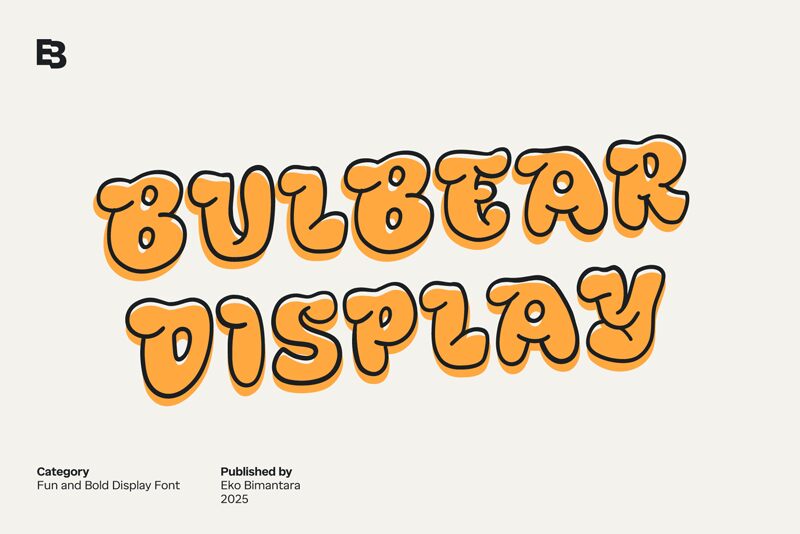
Bulbear Line Regular
Bulbear Line font by Eko Bimantara is a free display font with a cartoonish style that conveys playful impressions. Its shapes are bubbly and exaggerated to capture a retro-inspired feel similar to headlines from past decades. While decorative overall, aesthetically it also somewhat reflects the moods of enthusiasm and fun as well as youthfulness.
Whether for posters, covers, advertising banners, t-shirts, packages, titles or headings in brochures and flyers or some website/other use: Bulbear Line would be a marvelous choice! Surely expect lighthearted designs that communicate unconventional beauty each time.